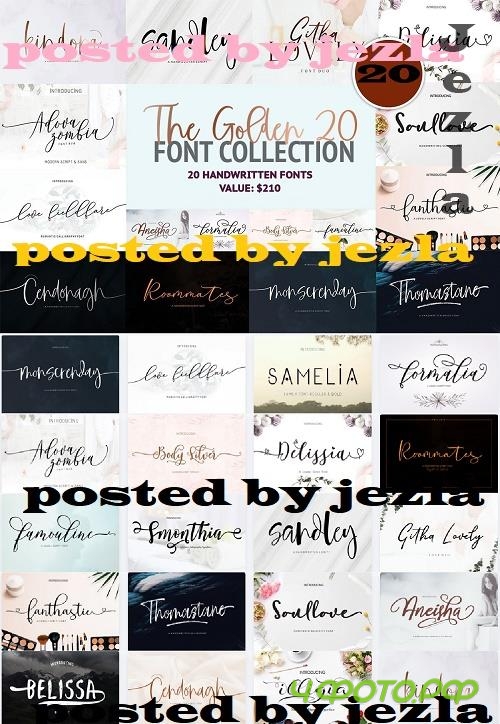
The Golden 20 Font Collection
this beautiful collection features 20 script fonts that will elevate any creation.
Choose your favorite handwritten fonts and use them in your upcoming projects. Create outstanding logos, branding, wedding invitations, pantry labels, business cards, greeting cards, posters, websites, and much more!